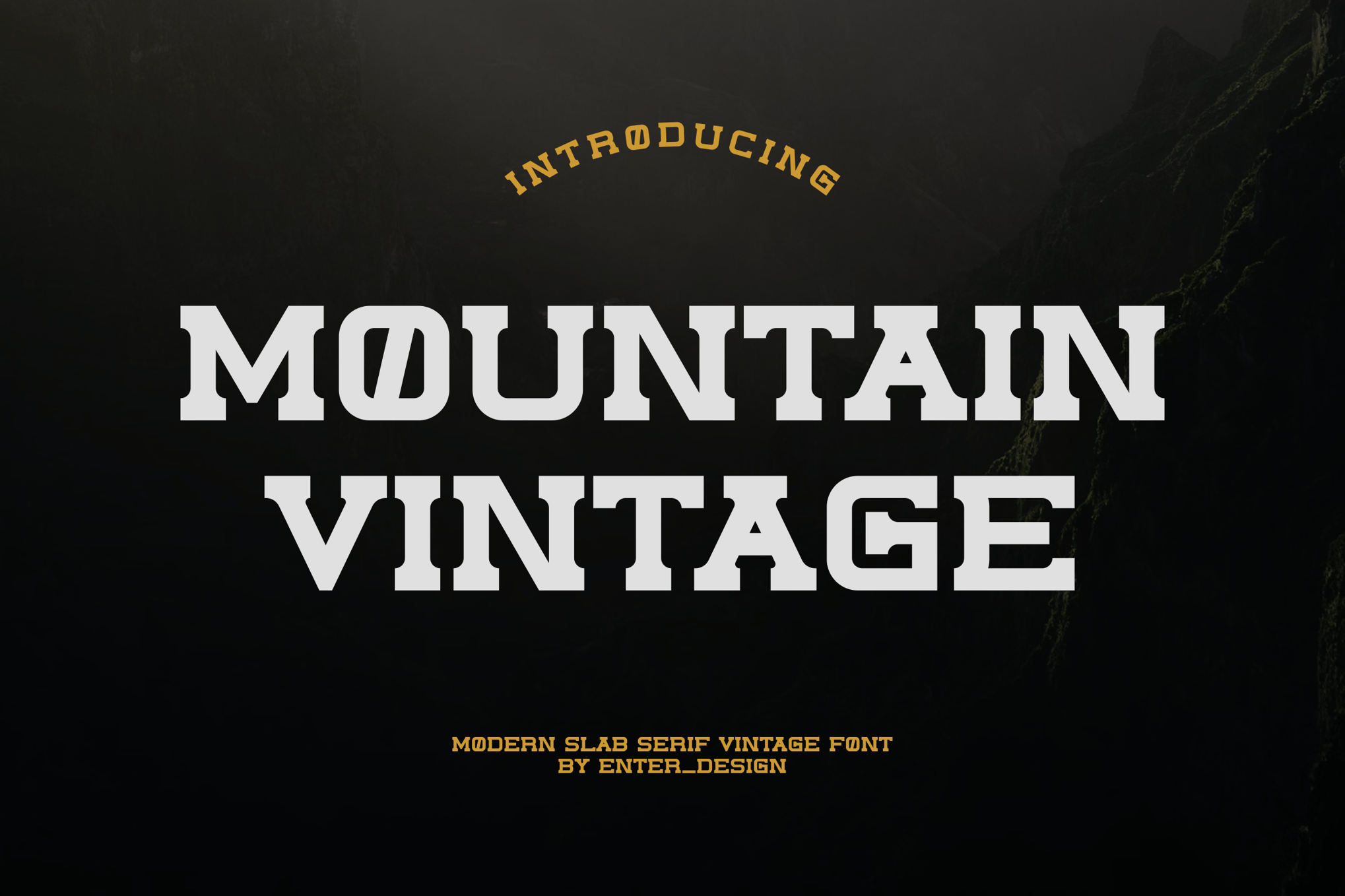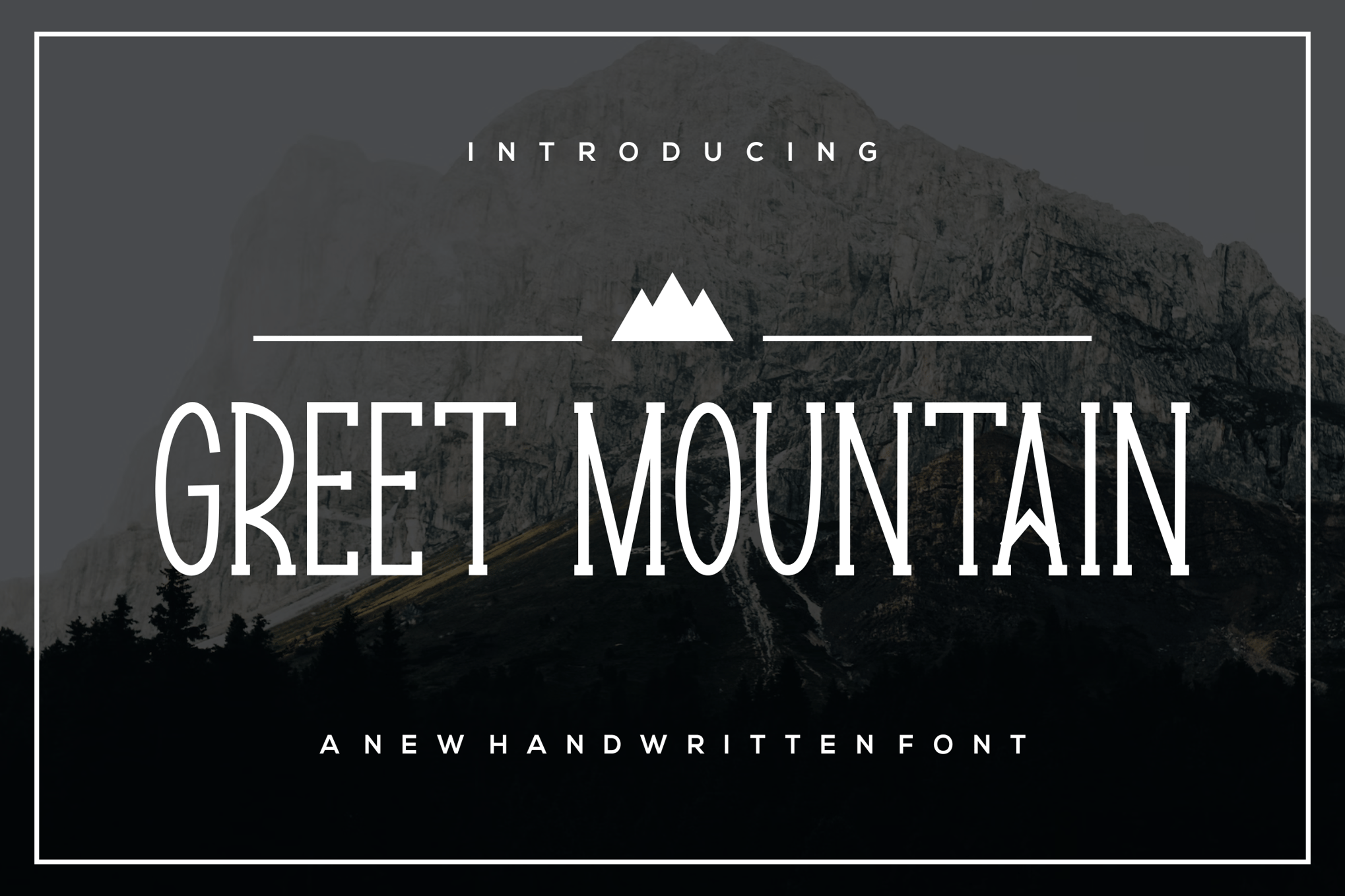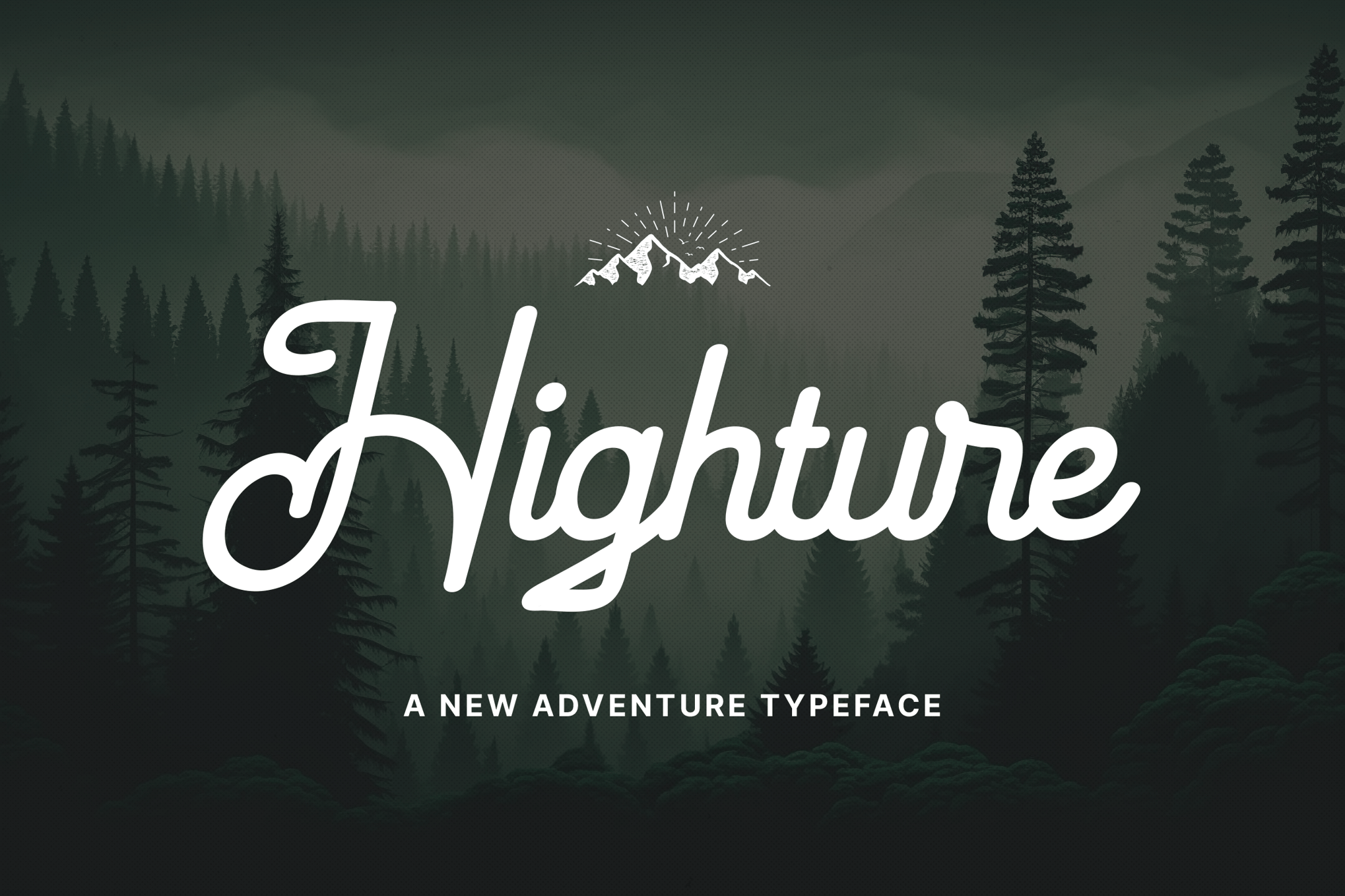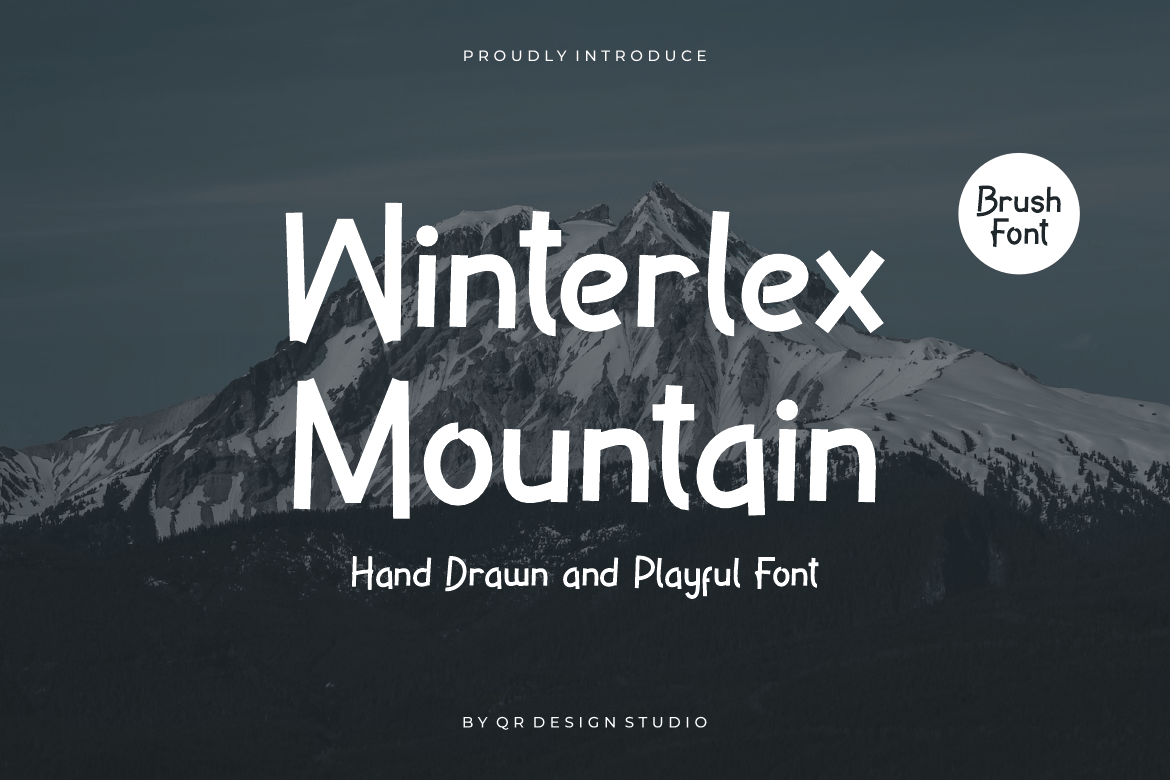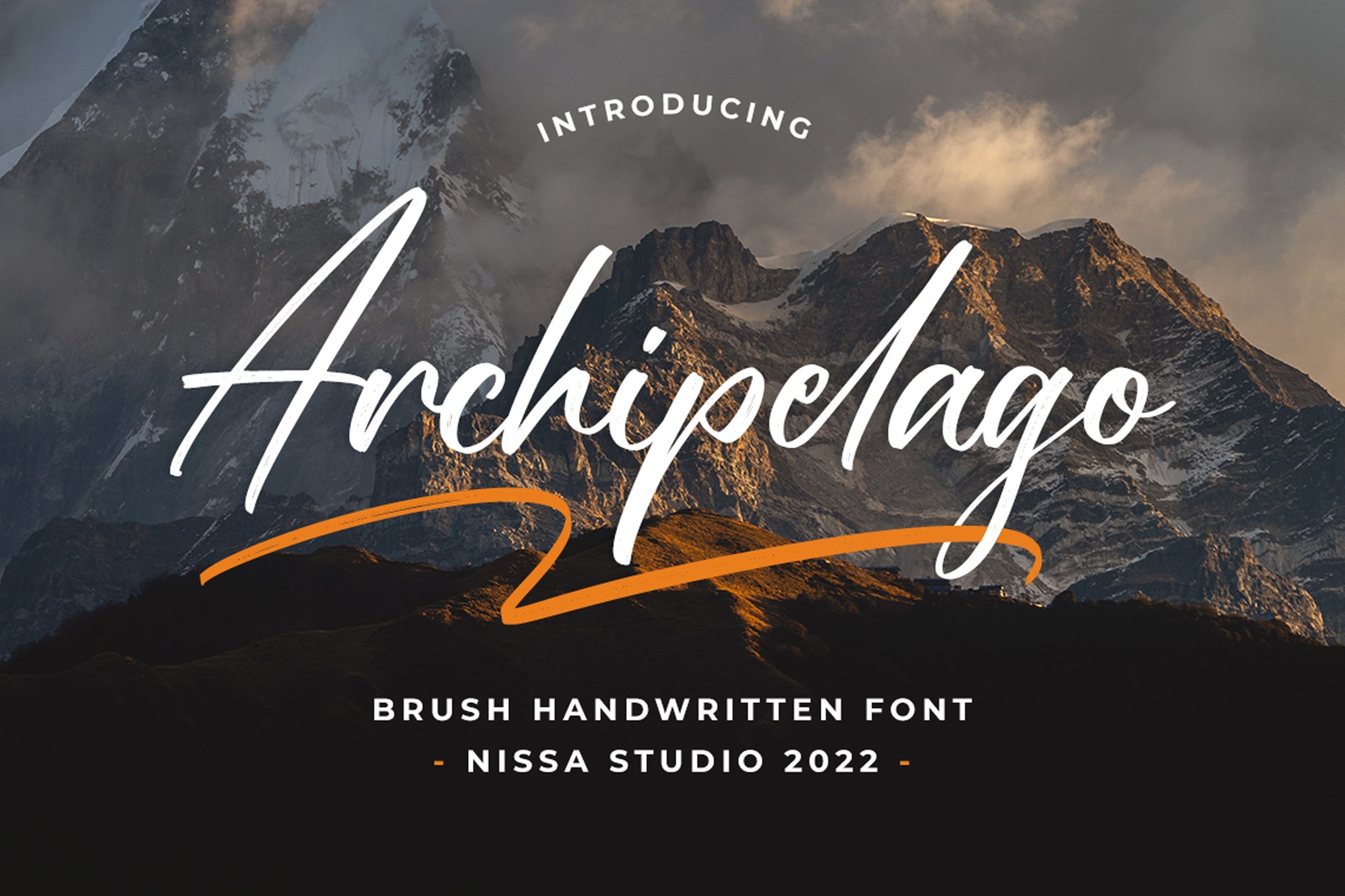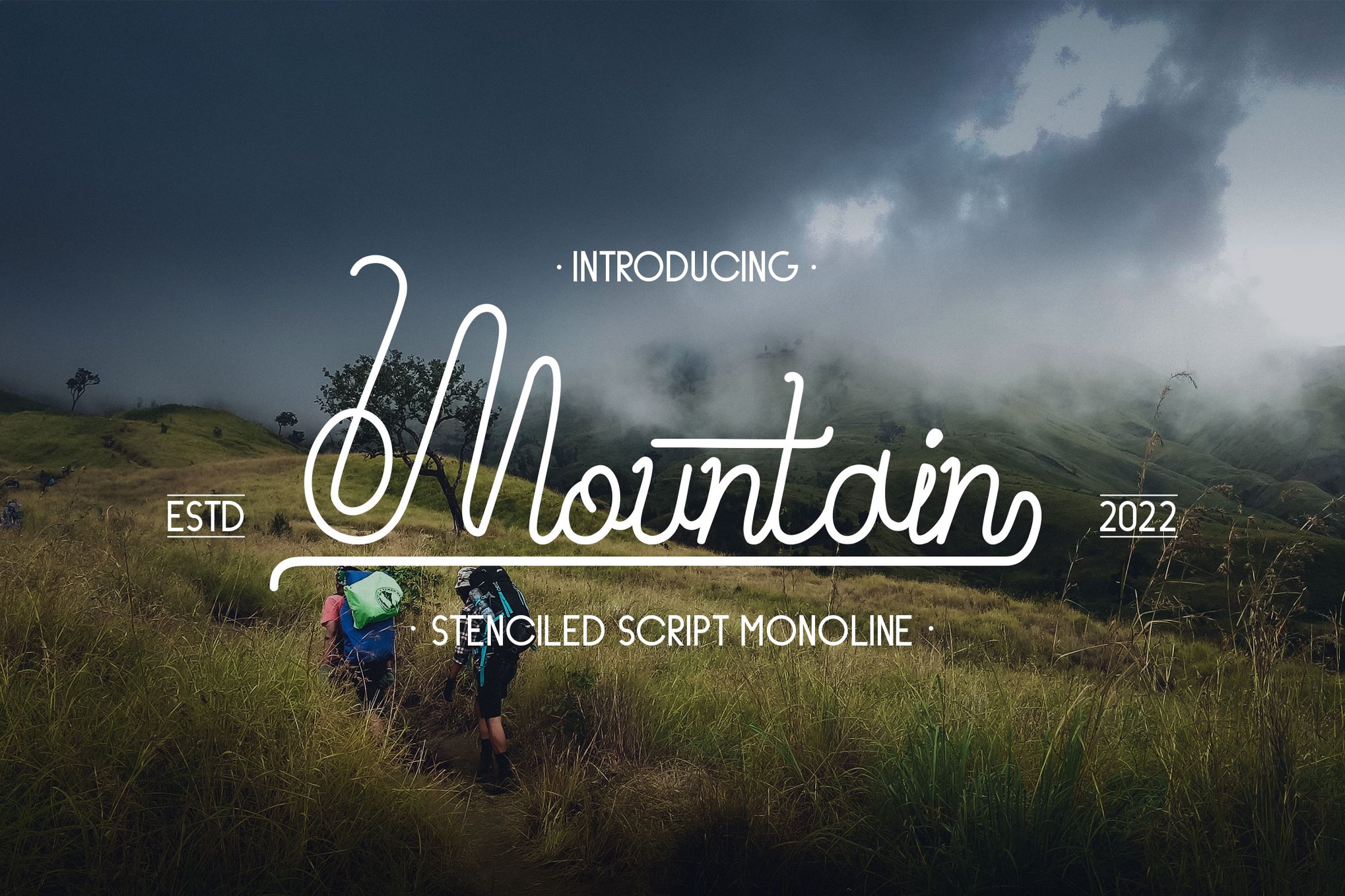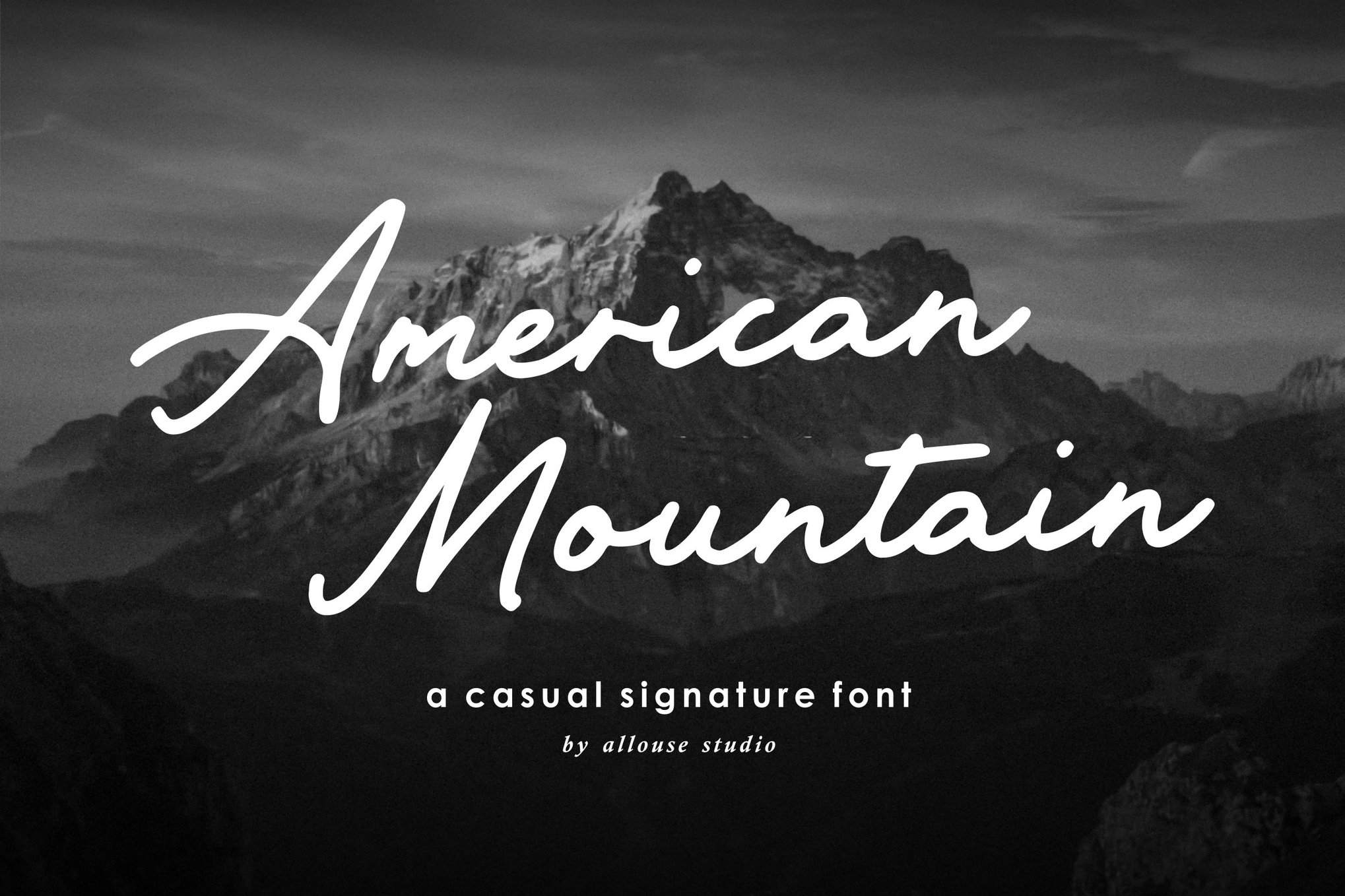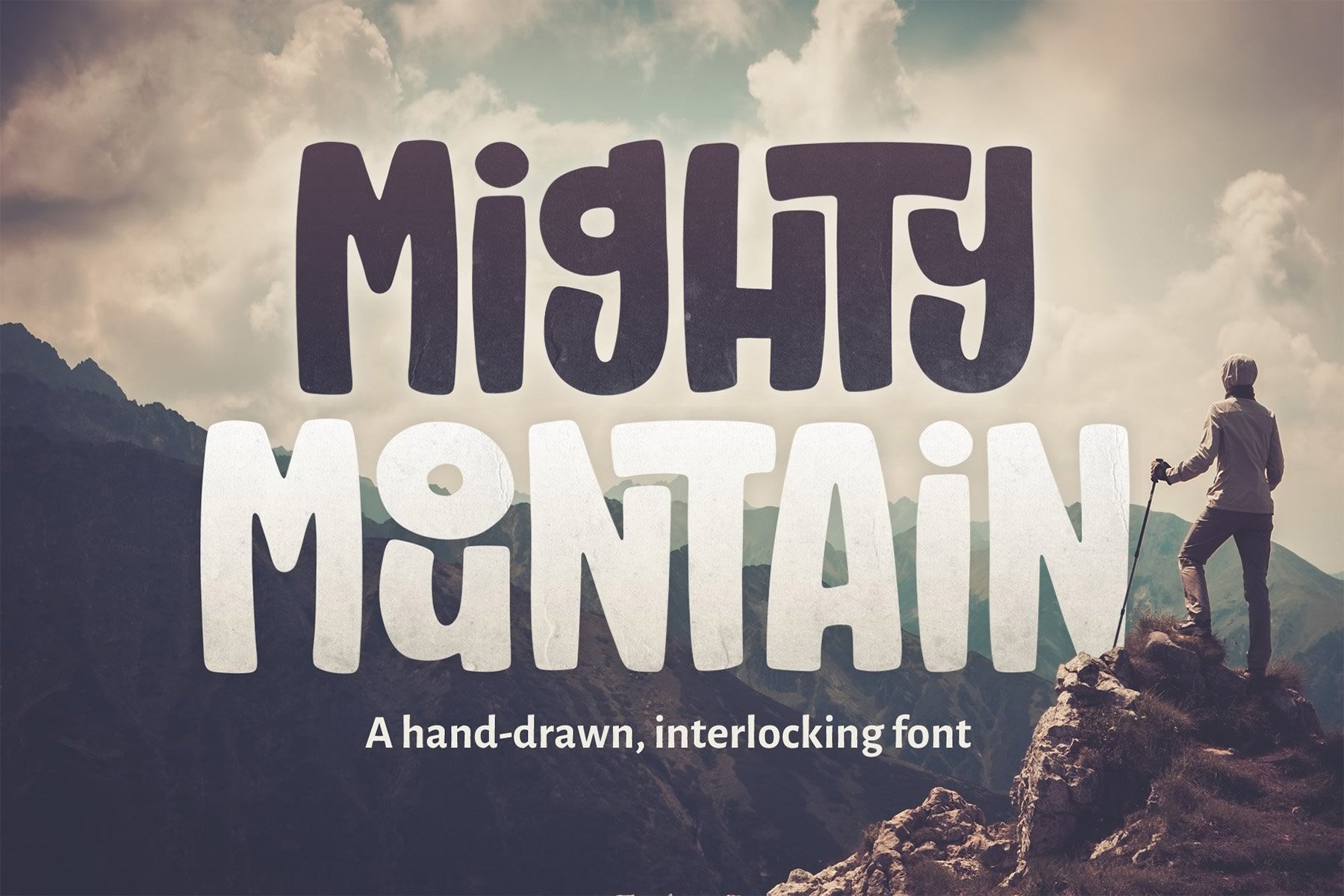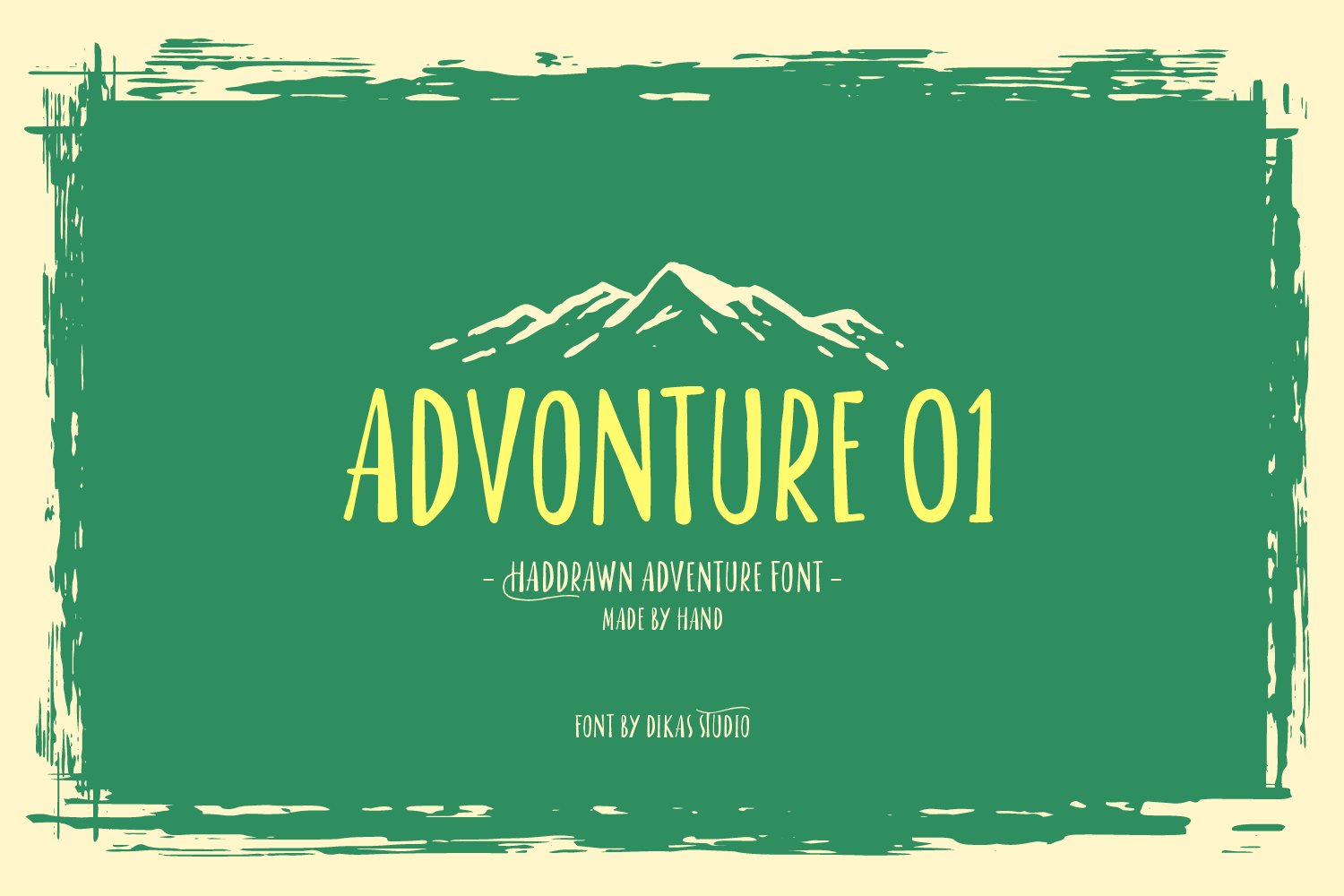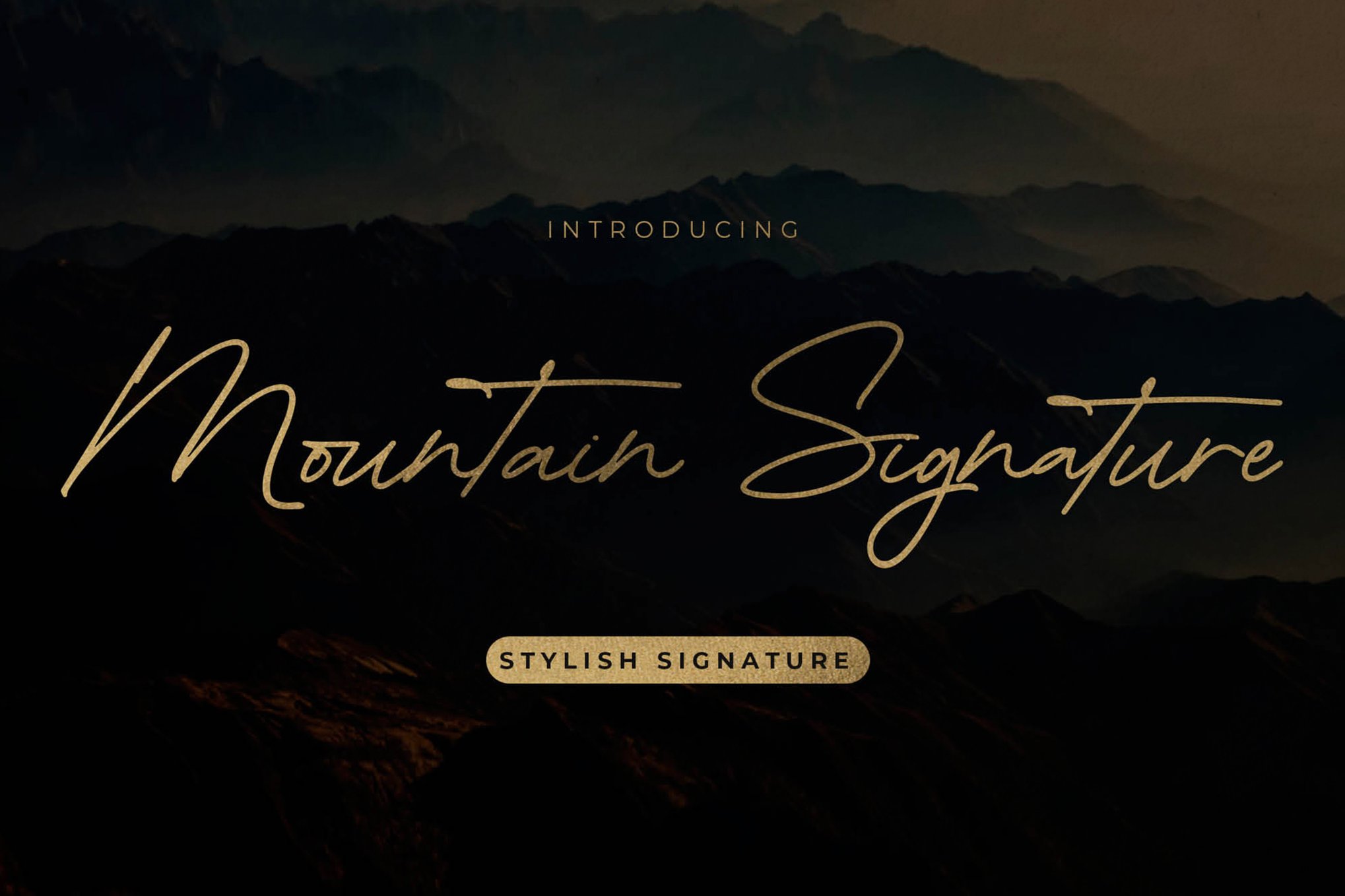
20+ Awesome Mountain Fonts for Adventurous Designs
Mountain-themed fonts bring the energy of outdoor adventure into typography with rugged shapes and nature-inspired details.
Inspired by hiking culture, alpine landscapes, and vintage expedition graphics, these fonts are designed to feel bold, durable, and connected to the wilderness.
These fonts are commonly used in adventure logos, camping merchandise, travel posters, brewery labels, and outdoor-themed branding.
Their strong visual personality helps create designs that immediately communicate exploration, freedom, and a connection to nature.
Below, you’ll discover a curated collection of the best mountain fonts for various outdoor and adventure designs.
These fonts will help you create bold, outdoors-inspired visuals that feel rugged, energetic, and ready for exploration.
Mountain Vintage – Classic Adventure Font
Mountain Vintage is a bold and authentic typeface perfect for outdoor and adventure-themed designs. Ideal for branding projects like logos and esports, it shines in diverse contexts. Available in OTF and TTF formats and featuring uppercase letters, this font adds a touch of vintage charm to your creative projects.
Greet Mountain – Condensed Outdoor Font
Greet Mountain is a bold and authentic typeface perfect for outdoor and adventure-themed projects. Ideal for branding, logos, and t-shirt designs, this versatile font stands out in various settings. Available in OTF and TTF formats with uppercase letters, it’s a must-have for creative designs seeking a modern edge.
Highture – Outdoor Mountain Font
Highture is a stylish script typeface that combines a classic, vintage feel with an adventurous spirit, ideal for projects with natural or travel themes. Its flowing, handwritten look suits logos, branding, and more, adding authenticity and unique character. Offering uppercase, lowercase, symbols, and multilingual support, it meets diverse design needs in OTF, TTF, WOFF, and WOFF2 formats.
Winterlex Mountain – Hand Drawn Font
Winterlex Mountain is a versatile and authentic brush display font, perfect for outdoor and adventure-themed designs. Ideal for branding projects like kids’ activities, Christmas events, posters, and sports logos, it stands out in various contexts. The font comes in OTF, TTF, and WOFF formats.
Archipelago – Handwritten Mountain Font
Archipelago is a charming script font ideal for outdoor and adventure-themed designs. It combines elegance and class with a modern touch, featuring beautiful swashes, unique ligatures, and multilingual support. Perfect for Adobe and Microsoft software, Archipelago offers easy accessibility and a refreshing look to enhance your creative projects.
Mountain – Monoline Script Font
This is a versatile Monoline Script Font perfect for outdoor and adventure-themed designs. Ideal for badges, logos, and invitations, it offers ligatures, alternates, and a multilingual set in TTF, OTF, and WOFF formats. Easy to install on both Mac and Windows, it’s compatible with Adobe and Microsoft products.
American Mountain – Stylish Signature Font
American Mountain is a stylish signature font that captures the spirit of the outdoors and adventure. Perfect for titles, logos, packaging, and more, this versatile font brings a casual yet elegant touch to any project. Available in TTF, OTF, and WOFF formats, with multilingual support, it’s ideal for creative projects of all kinds.
Mighty Mountain – Hand-Drawn Font
Mighty Mountain is a hand-drawn font perfect for outdoor and adventure-themed projects, featuring unique interlocking and stacked characters. In programs supporting OpenType features, it automatically creates these interlocks. For more control, use Mighty Mtn Single and Mighty Mtn Multiple to select specific ligatures.
Advonture 01 – Creative Mountain Font
Advonture 01 is a charming, hand-drawn typeface ideal for outdoor and adventure-themed designs. With its vintage and rough character, it’s perfect for logos, branding, badges, and merchandise. Suitable for retro-themed projects, this versatile font is available in otf, ttf, and web formats, making it easy to incorporate into various creative designs.
Mountain Signature – Stylish Mountain Font
Mountain Signature is a beautifully crafted script font designed for adventure and outdoor-themed projects. With 28 ligatures, it delivers a seamless handwritten look ideal for logos, packaging, and quotes. Easily accessible on both PC and Mac through software like Adobe and Microsoft Word, it includes multilingual support.
Mountain Silent – Modern Mountain Font
Mountain Silent is a versatile typeface perfect for any outdoor or adventure-themed project. With its clean design, this font enhances posters, social media posts, branding, and personal projects. The package includes OTF, WOFF, and TTF files, ensuring compatibility across various platforms.
Mountain Warrior – Monoline Script Font